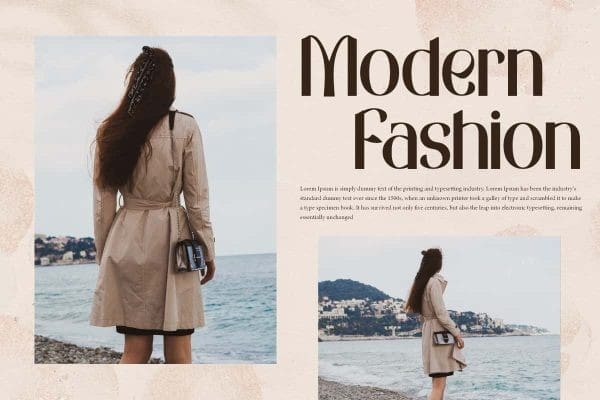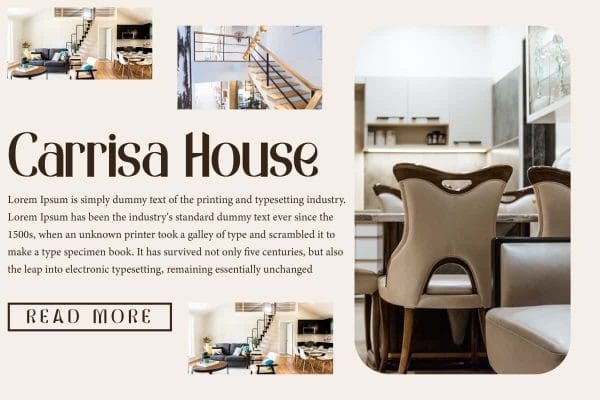
Vertimes Display Font
Vertimes Display Font is a sophisticated stylish sans serif display font. This font exudes a feminine aura with short and thick lines that are neatly drawn and attractive. It will work good in many designs, such as cover, brand image, custom design, gift box, greeting card, invitation, label, menu, poster, product packaging, quote, signage, web, and more!
Vertimes Display Font includes a full set of Uppercase and Lowercase Letters, Numerals, and large range of Punctuation. This modern font will be suitable for various industries, such as advertisement, beauty product, event or wedding organizer, cafe, fashion, florist, photography, printing, publishing, real estate, spa and salon, etc.